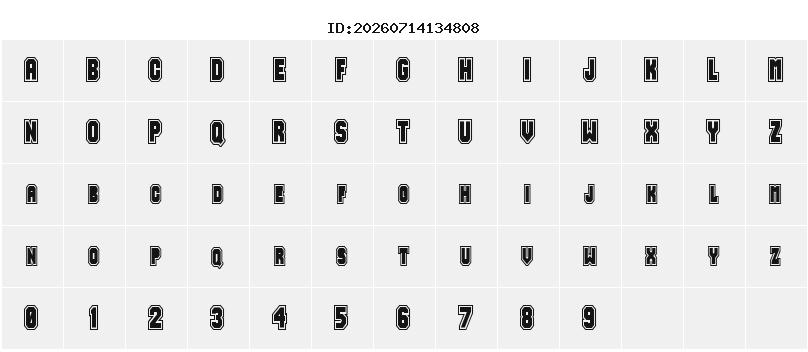
Jersey-Condensed Preview
• Font Name: Jersey-Condensed
• Full Font Name: Jersey-Condensed Normal
About Jersey-Condensed.ttf
Jersey-Condensed.ttf is a modern, elegant sans-serif font designed for ultimate readability and visual harmony. Perfect for branding, headlines, web design, and print materials.